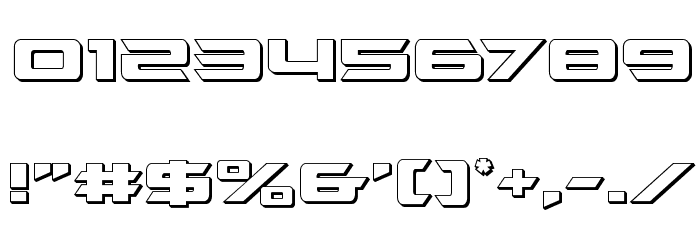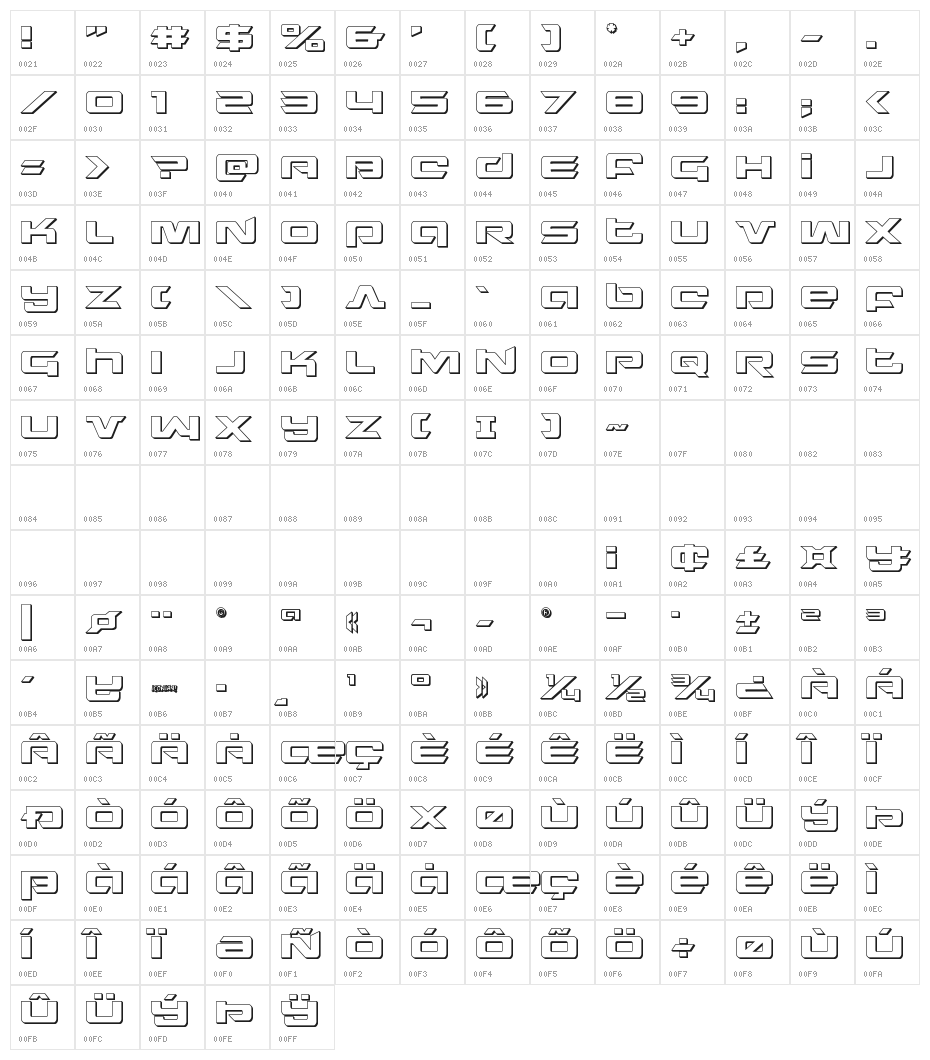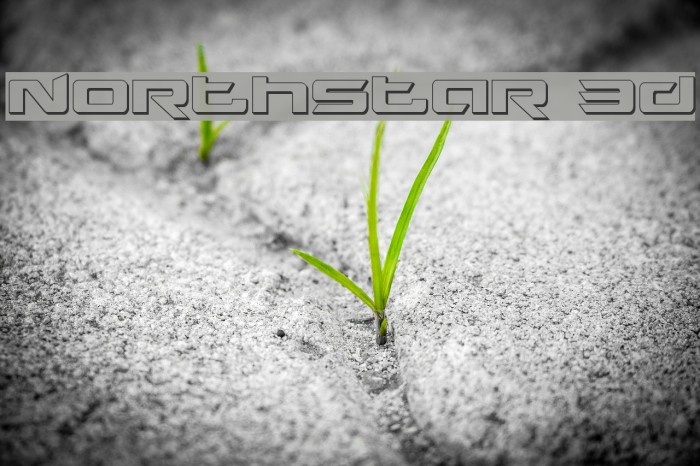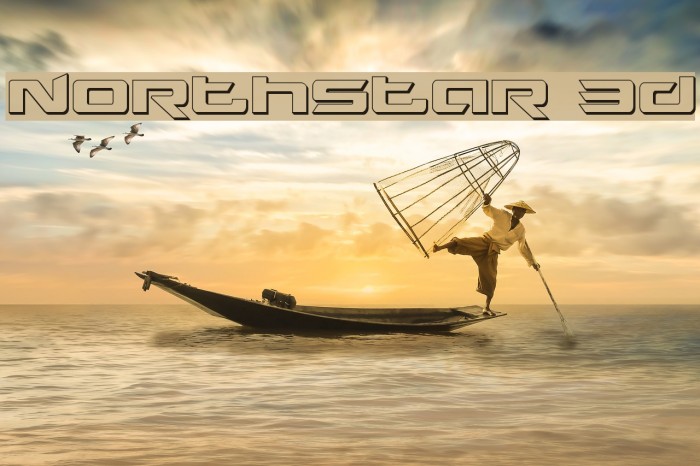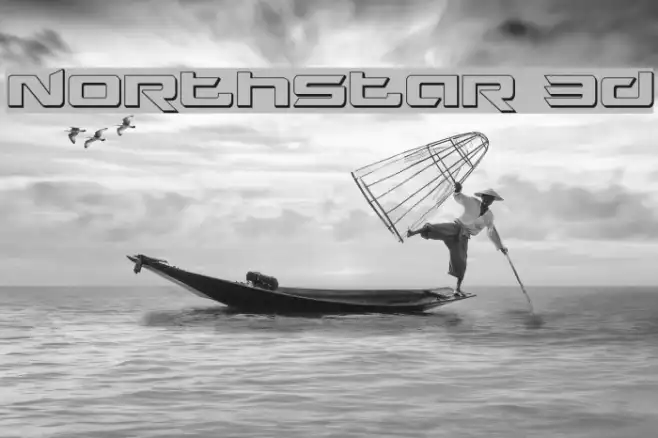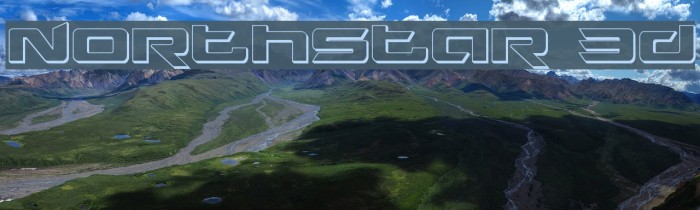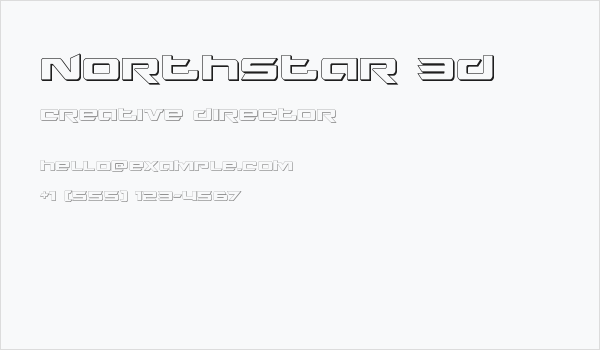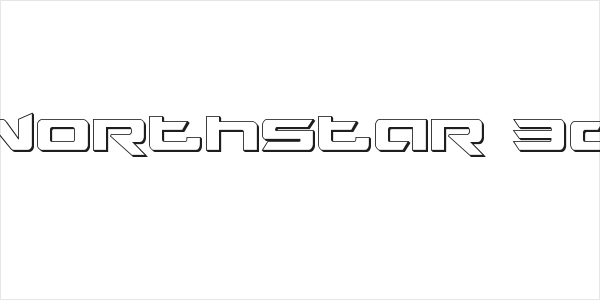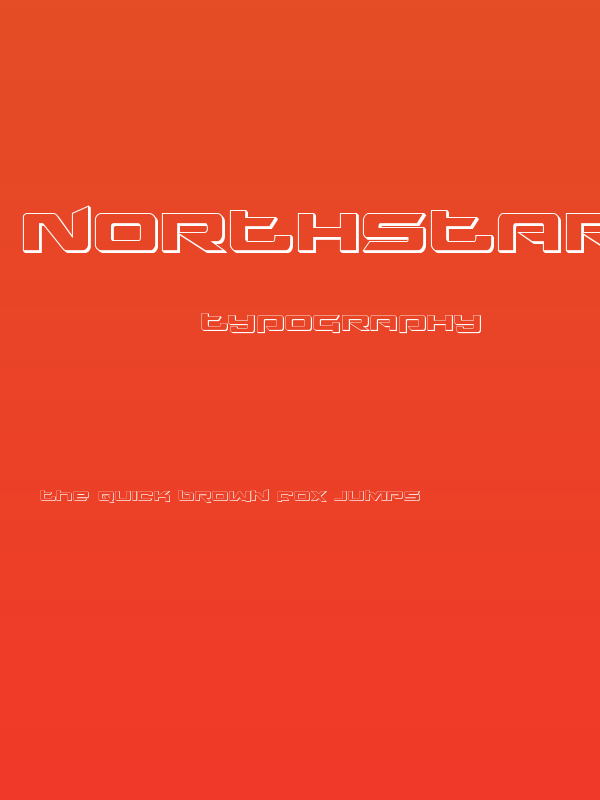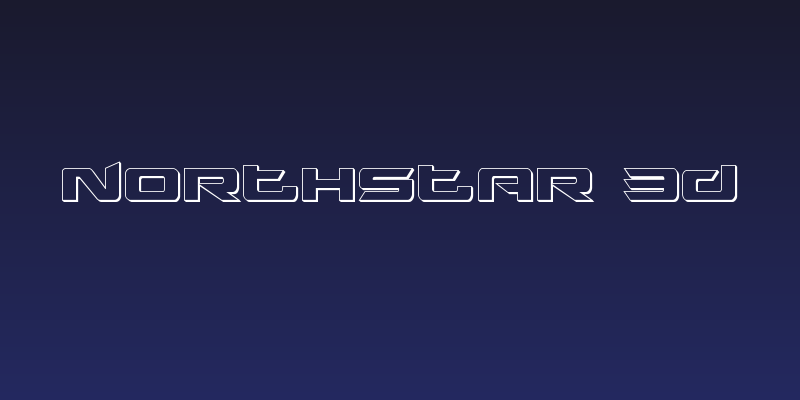
Northstar 3D Font
Northstar 3D Description
This font features a futuristic and geometric design with a three-dimensional effect. The characters are outlined, creating a hollow appearance that adds depth and visual interest. The angular and sharp edges give it a modern and tech-inspired feel, making it suitable for projects that require a bold and innovative look. The uppercase and lowercase letters maintain a consistent style, with uniform stroke widths and clean lines. The numerals and special characters are designed to match the overall aesthetic, ensuring a cohesive appearance across all text elements.
Proposed ProjectsIdeal for sci-fi themed designs, technology branding, video game titles, and modern posters.